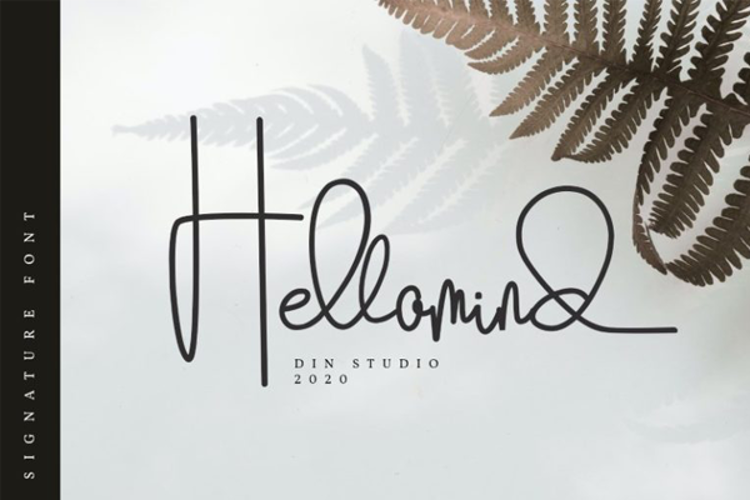
Hellomind Font
Hellomind is a beautiful signature font. It brings a modern and attractive typeface. Made for any professional project branding. It is the best for logos, branding, wedding and quotes.
Features include:
• Ligatures
• Stylistic Sets
• Multilingual Supports
• PUA Encoded
• Numerals and Punctuations